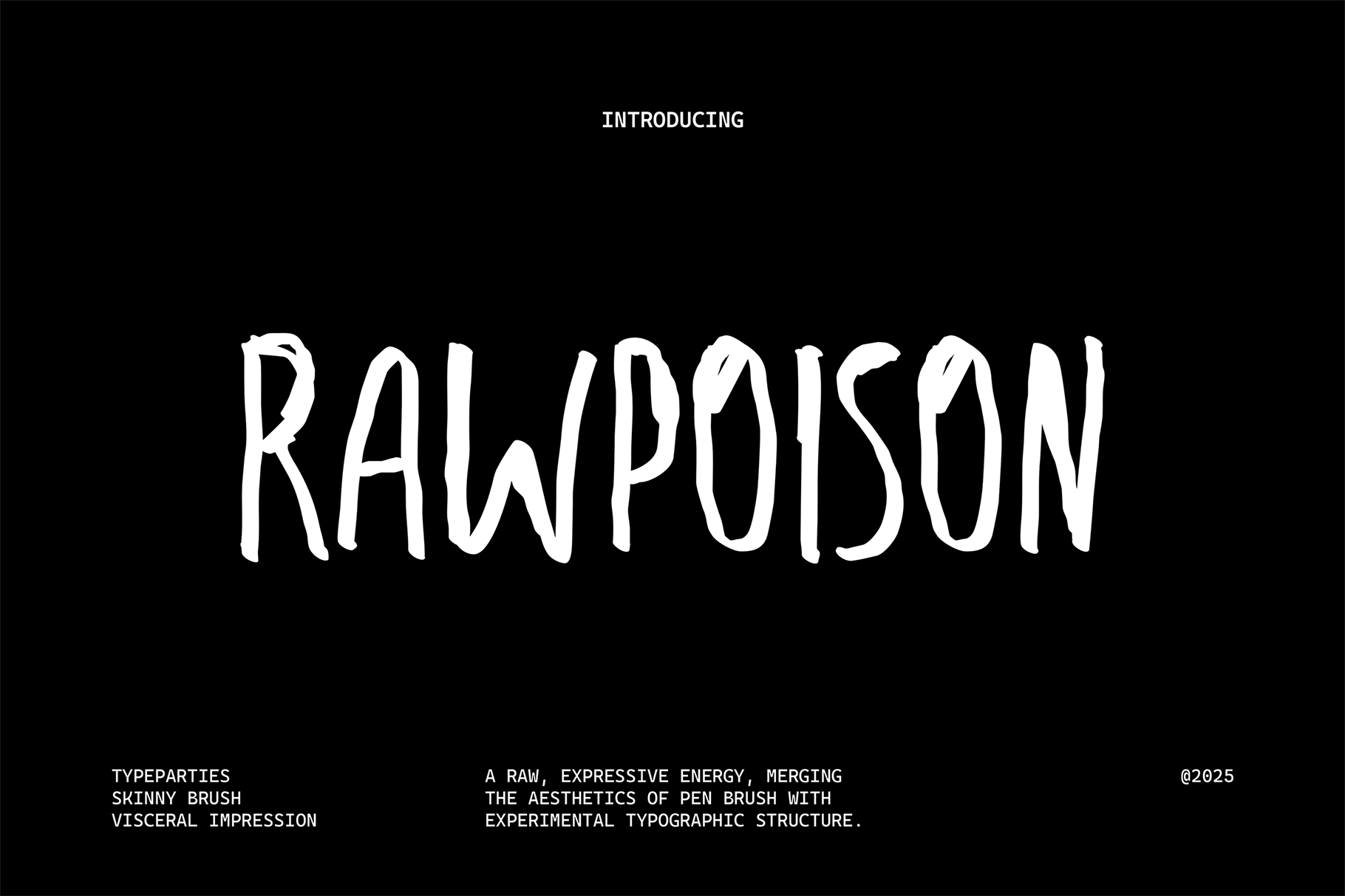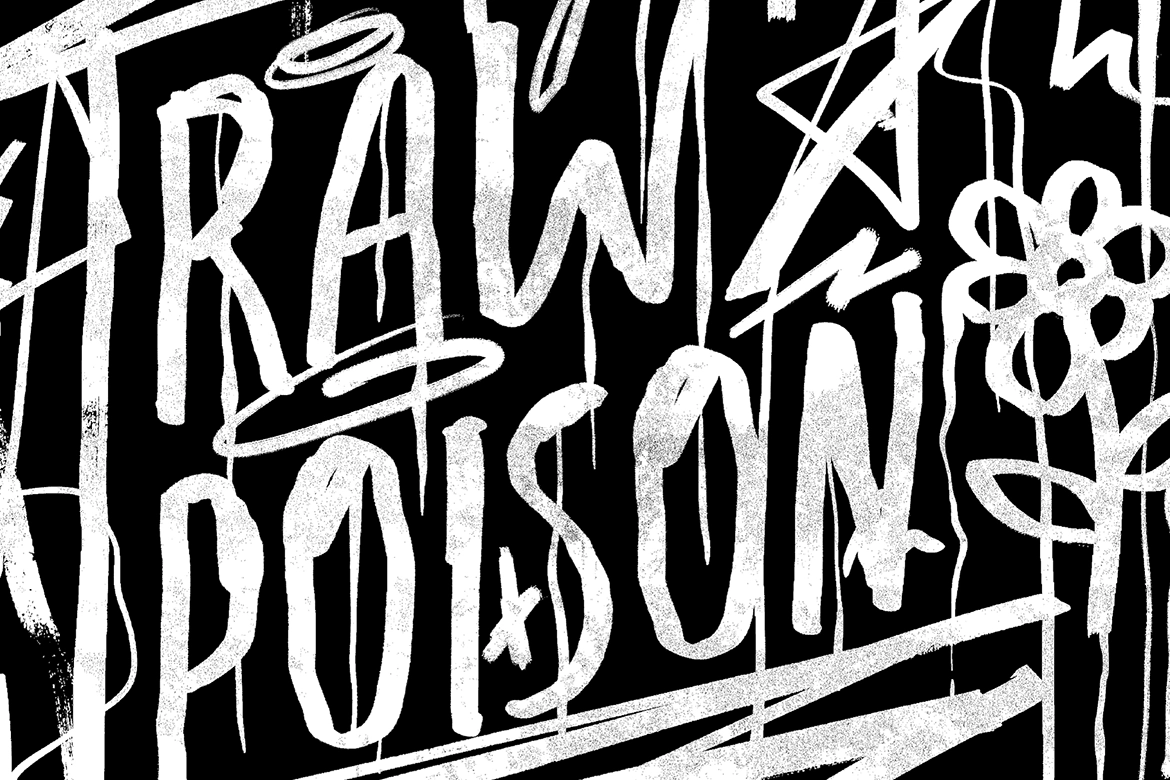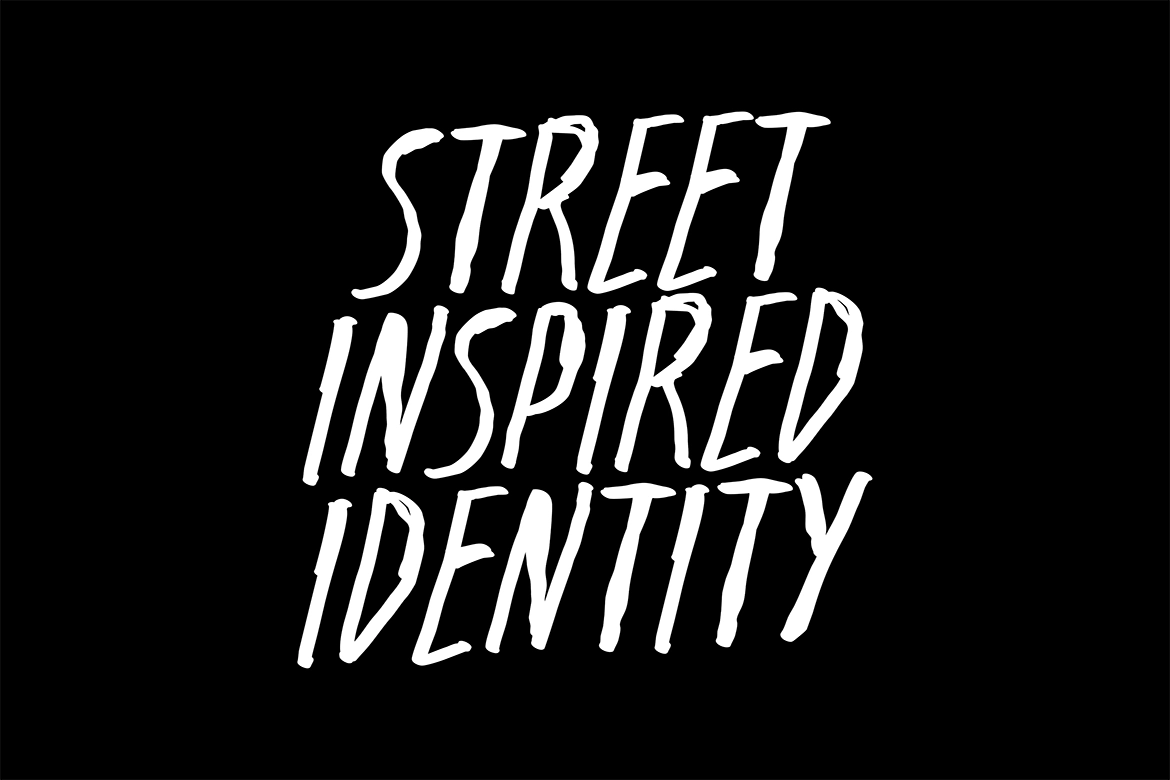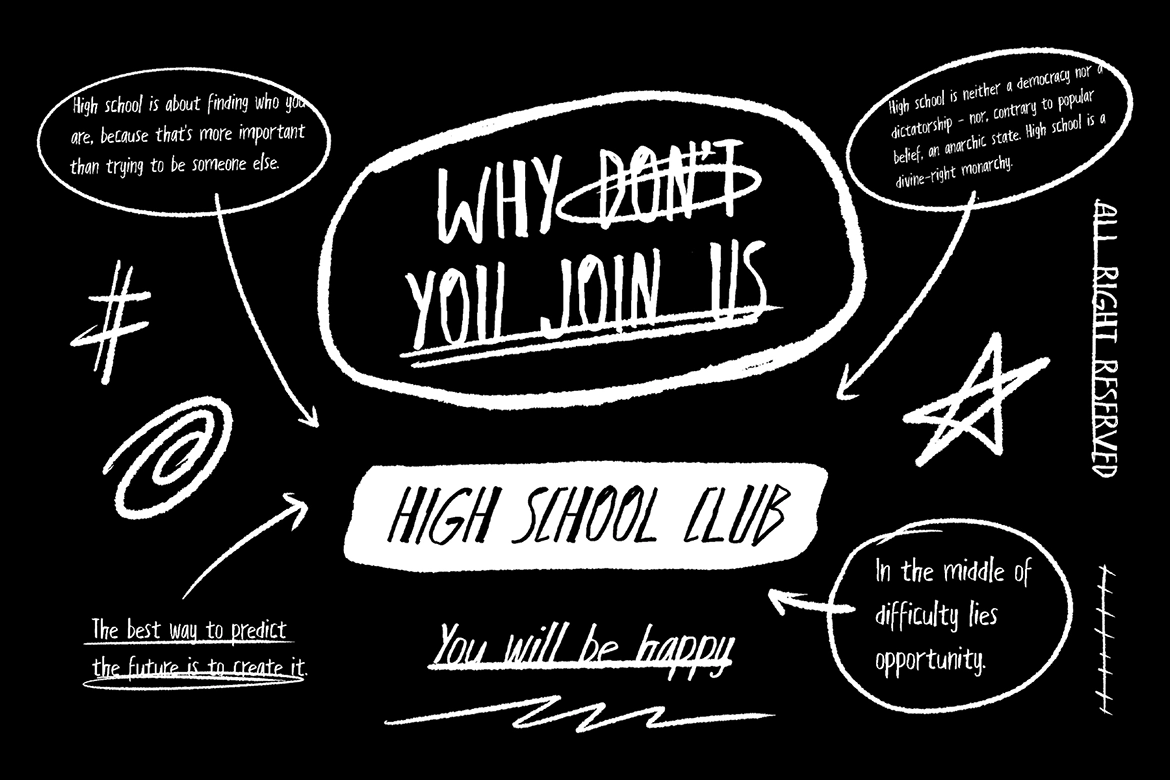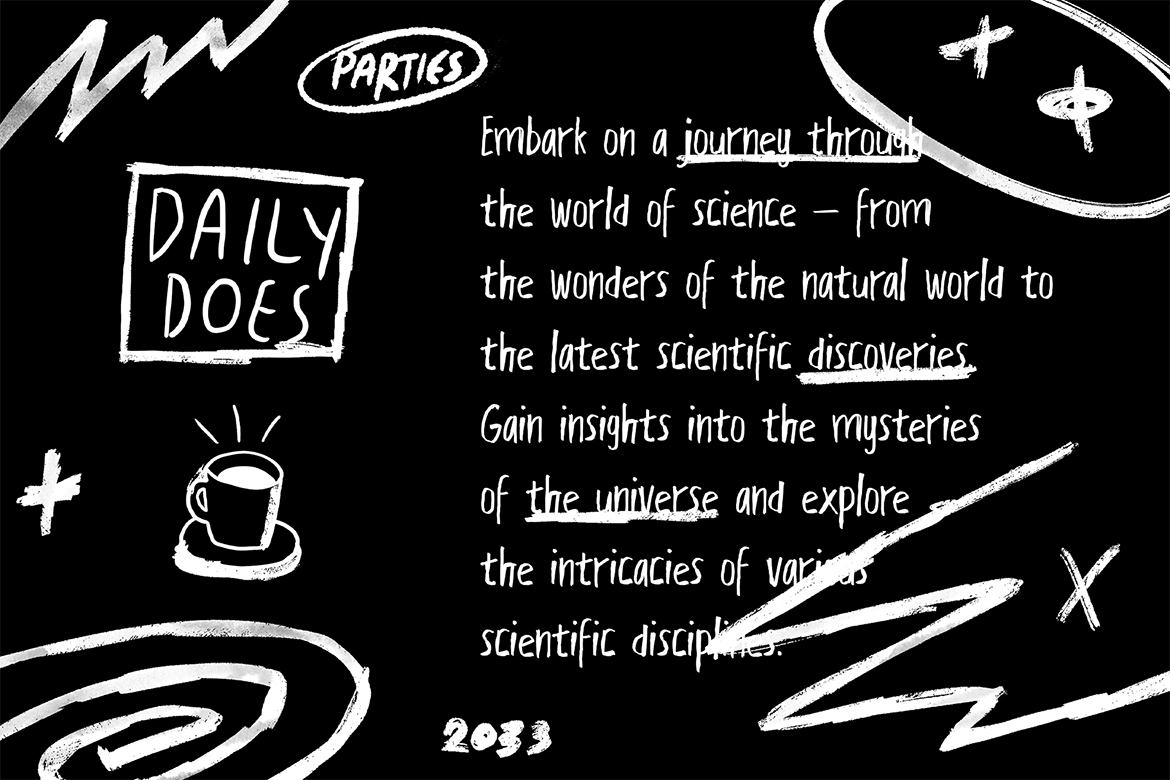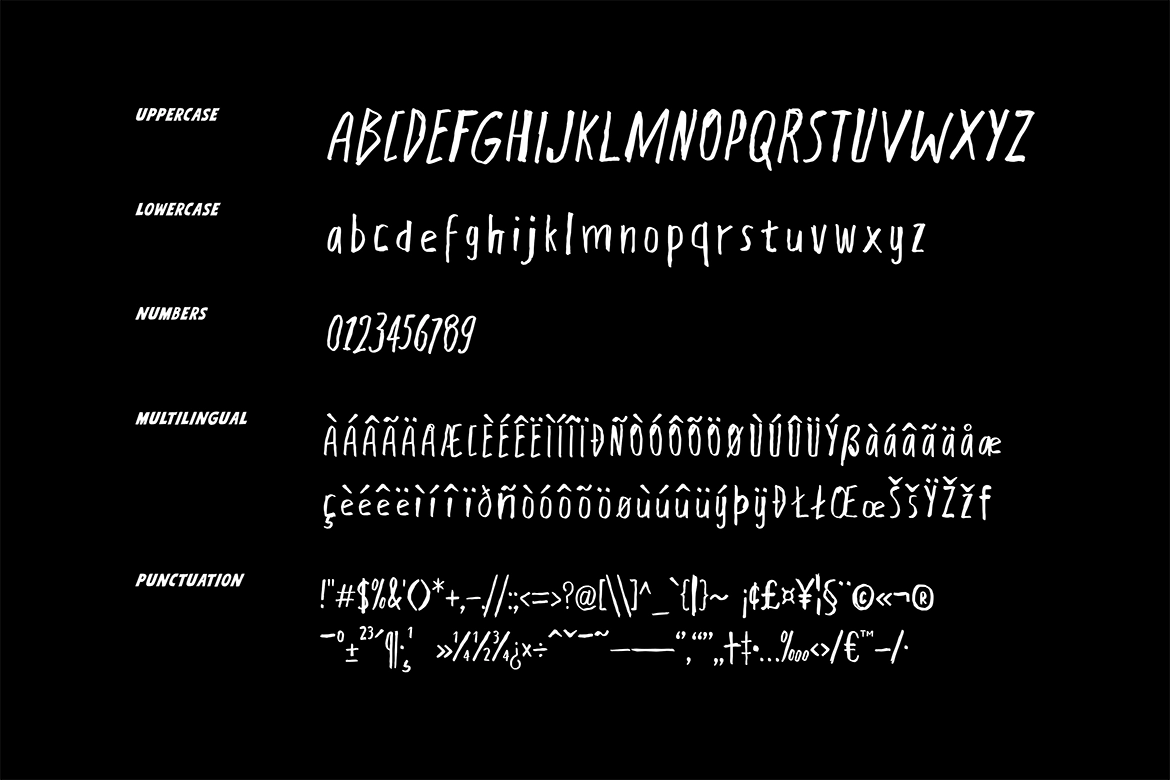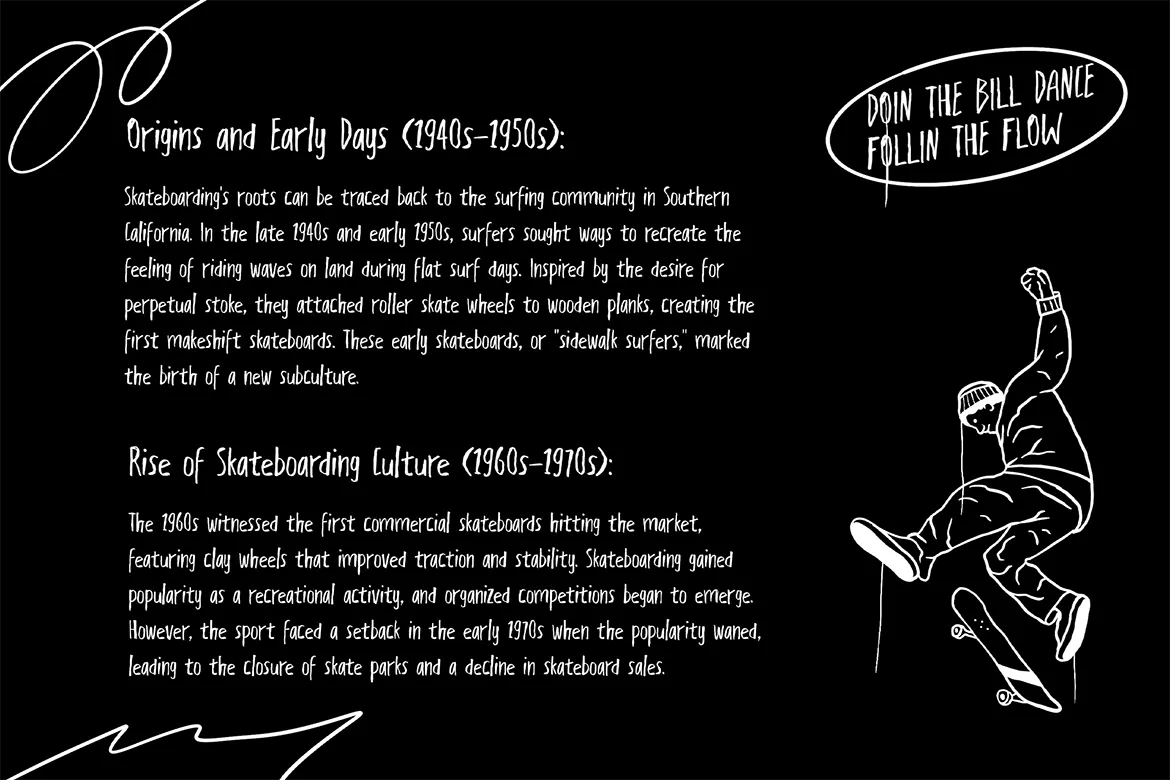
Raw Poison Font
ATP-RawPoison
Raw Poison fonts, crafted with a personal touch and artistic flair, add a unique and human element to typography. In this font, we explore the charm and versatility of hand-drawn fonts, celebrating the imperfections that make them a cherished tool in the designer's project.